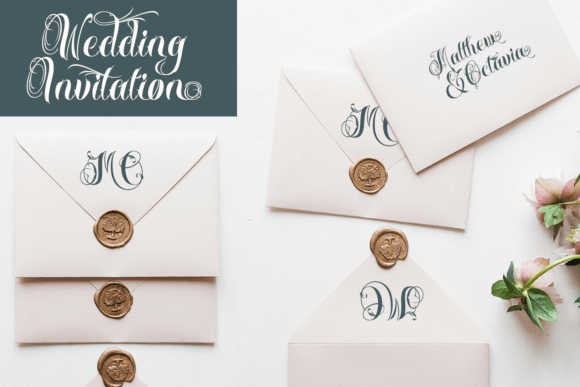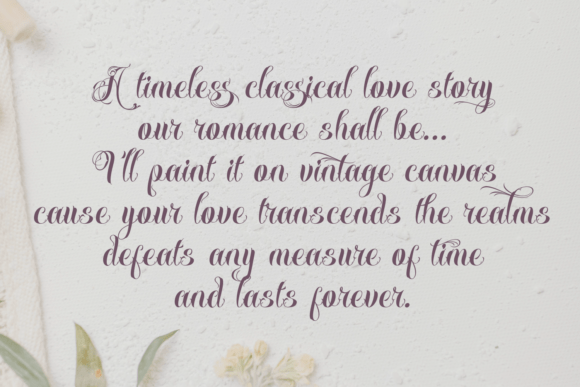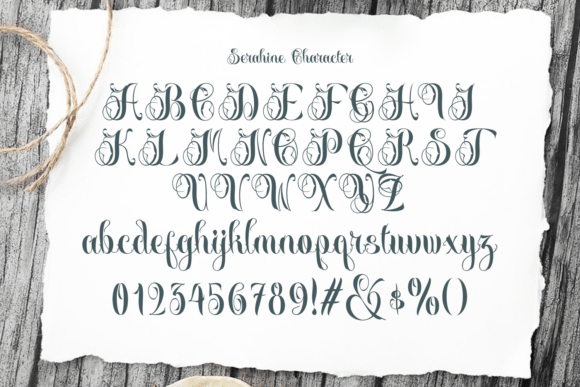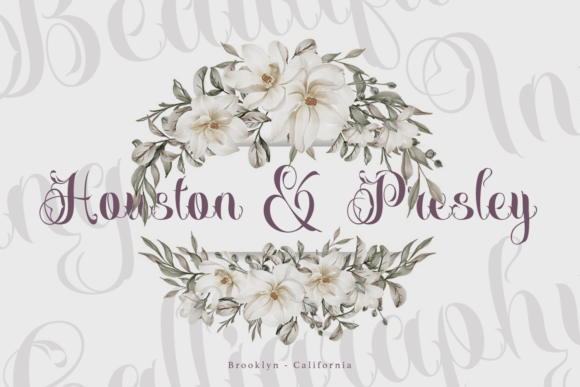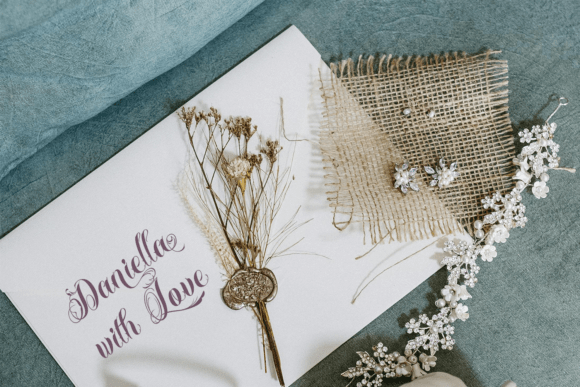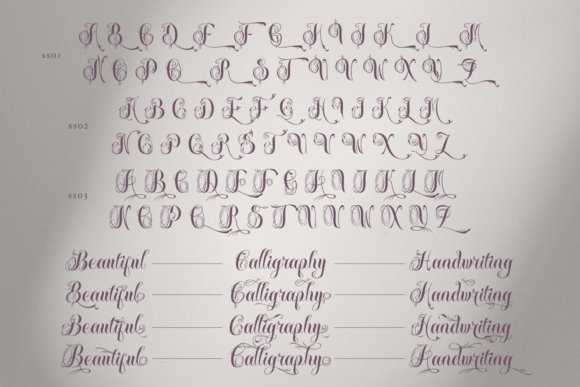
Introduction to Serahine Font
Serahine is a luxury decorative script featuring refined ornamental curves and artistic details in every letter.
Its graceful and rhythmic forms convey a classic, elegant, and high-end impression, inspired by European aristocratic typography Step into a world of classical elegance with Serahine font, a timeless decorative script that feels like a piece of history.
Key Features of Serahine Font
Why Choose Serahine Font?
Serahine Font offers exceptional quality and versatility, making it a valuable addition to your design toolkit. Whether you’re creating for personal projects or commercial use, Serahine Font delivers professional results.